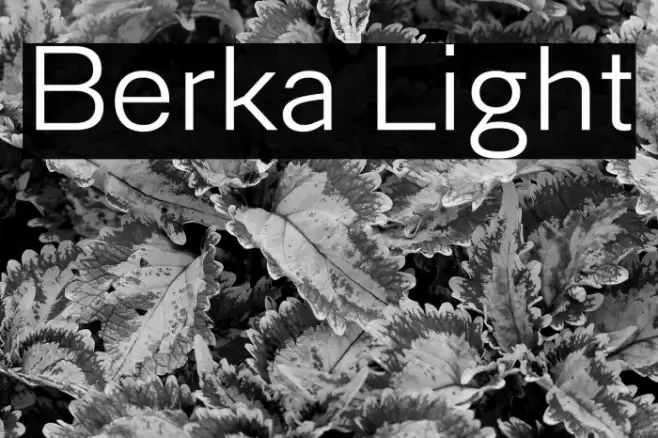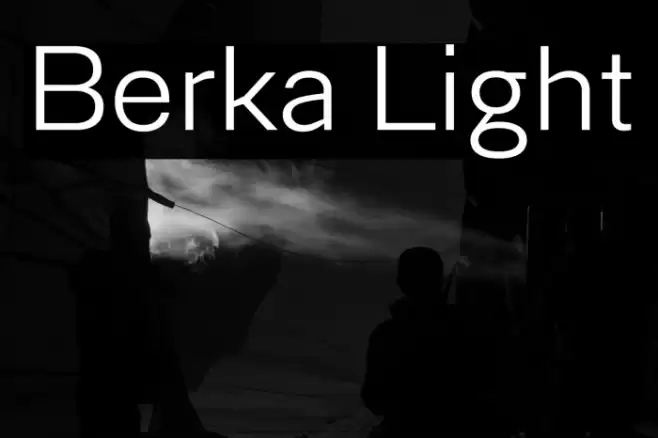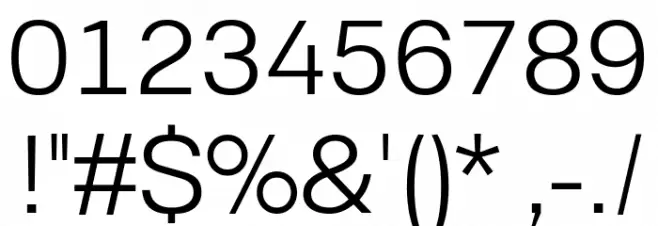
Berka Light Font
Berka Light Description
This font exhibits a clean and modern aesthetic with a sans-serif style. The characters are evenly spaced with a uniform stroke width, contributing to its legibility and simplicity. The uppercase and lowercase letters maintain a consistent height ratio, enhancing readability. The numerals are clear and distinct, making them suitable for both digital and print media. Special characters are well-defined, ensuring versatility across various applications. This font's minimalist design makes it ideal for contemporary projects.
A clean, modern sans-serif font with uniform stroke width and excellent legibility from Regular fonts.
- Proposed Projects: Ideal for branding, web design, corporate materials, and user interfaces due to its clarity and modern appeal.